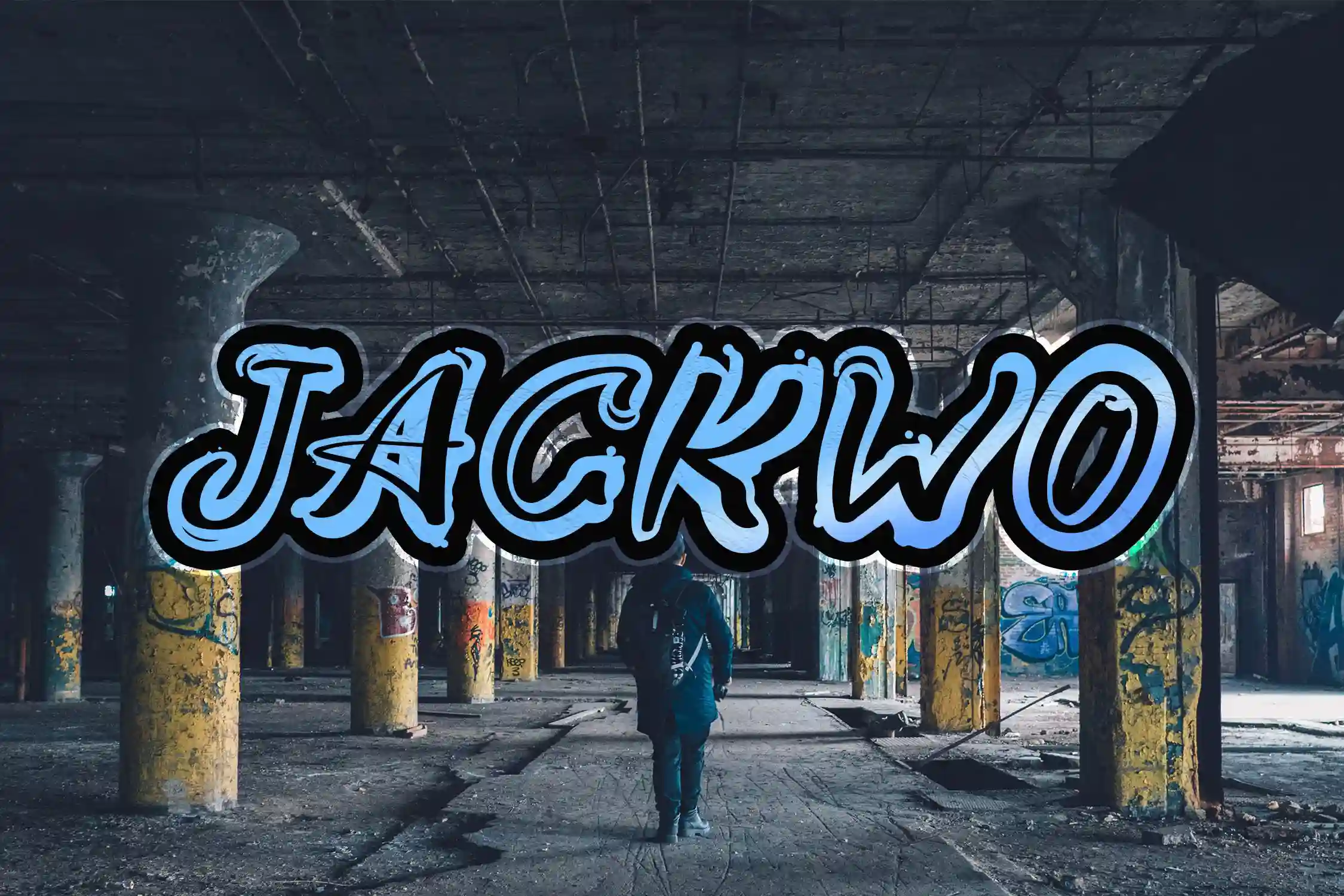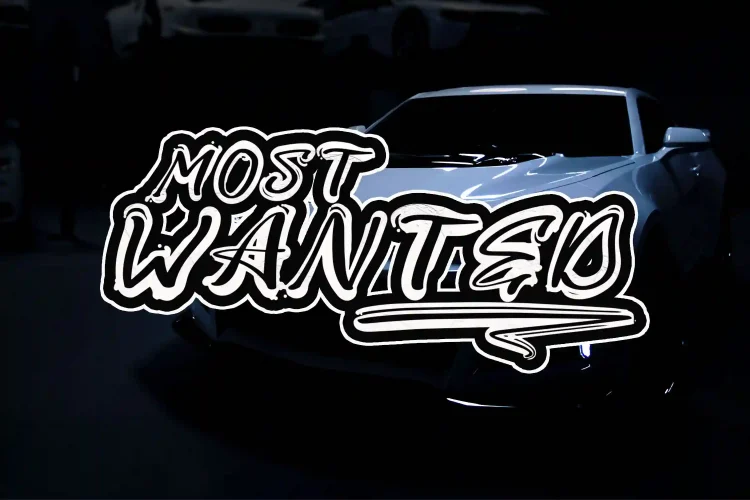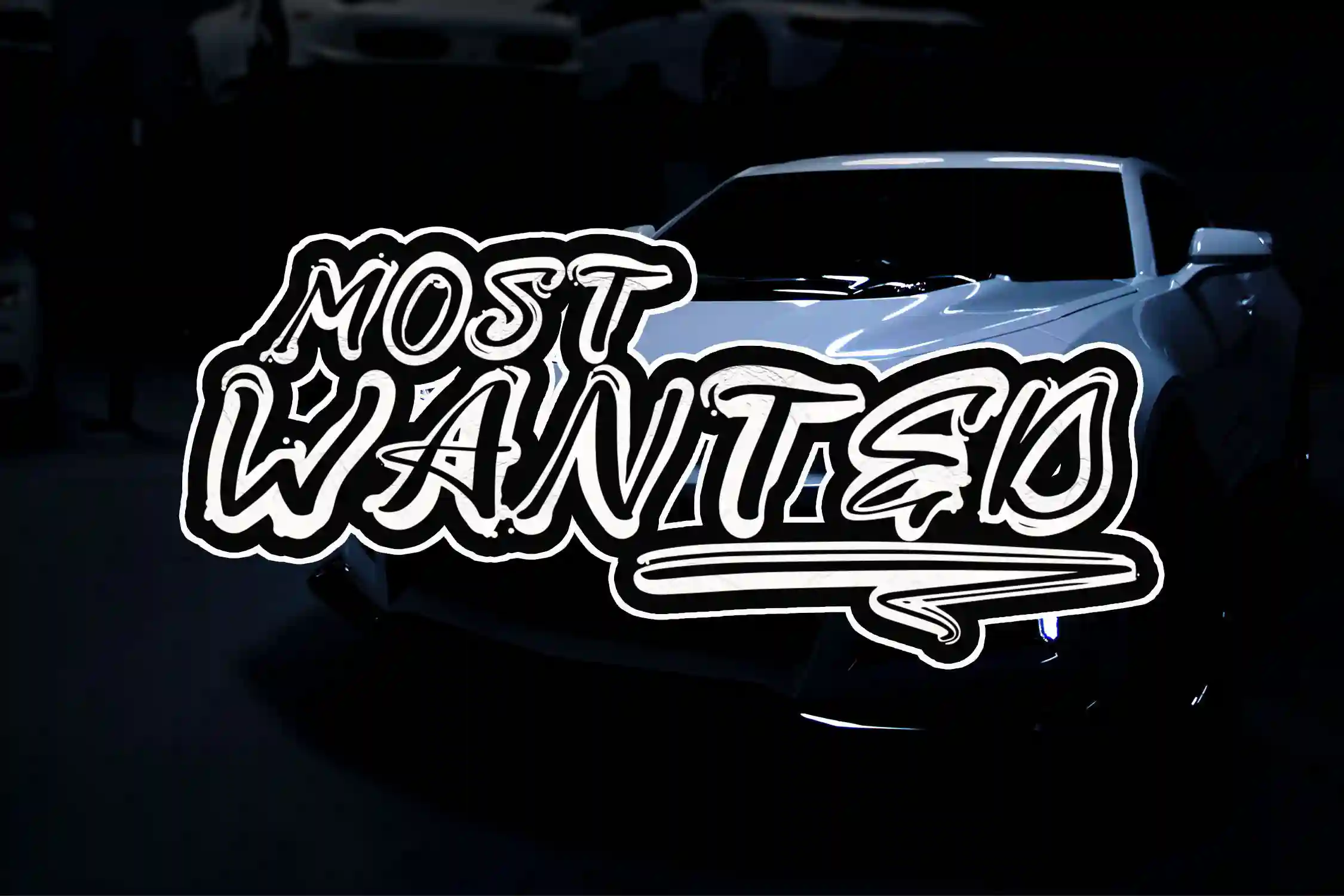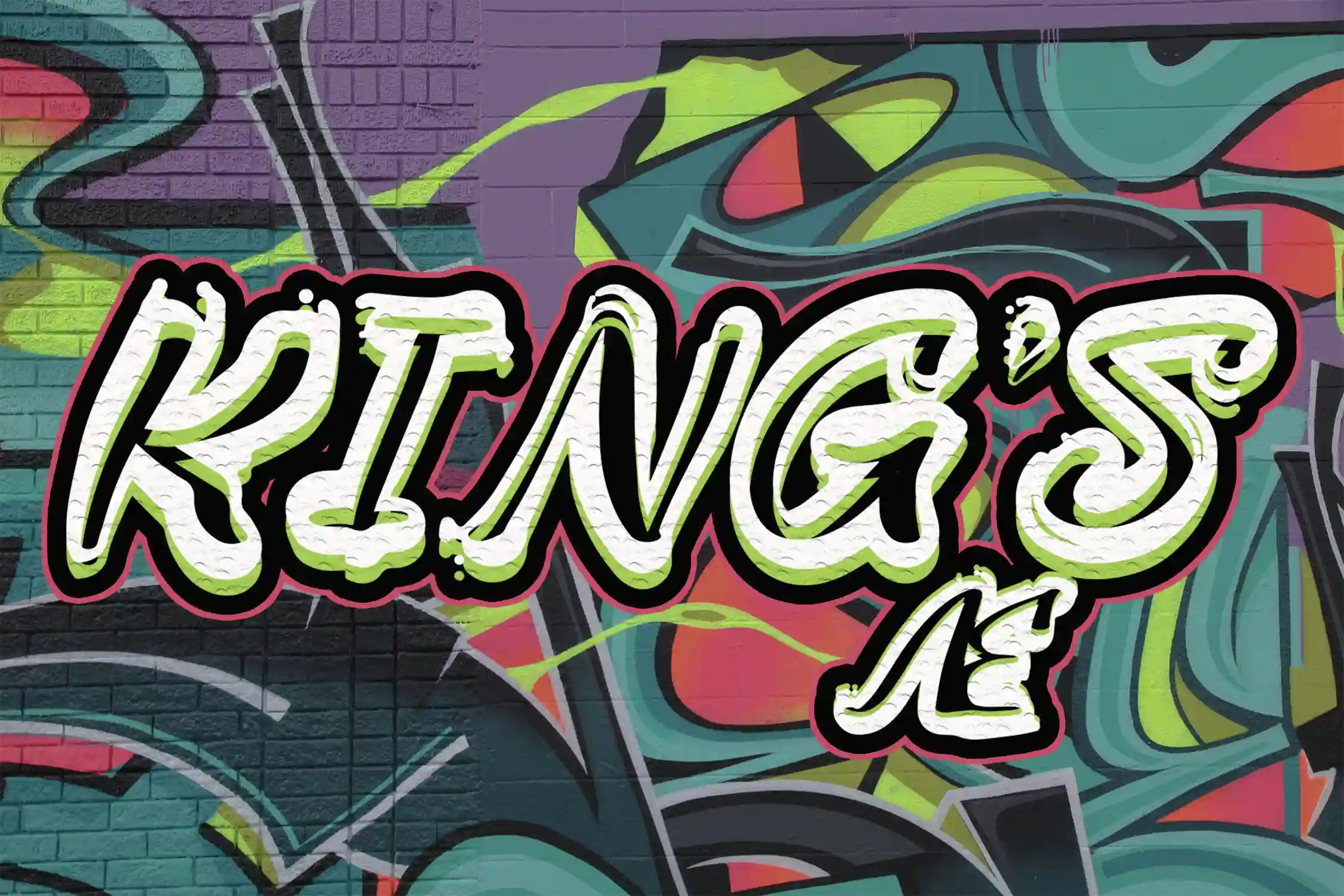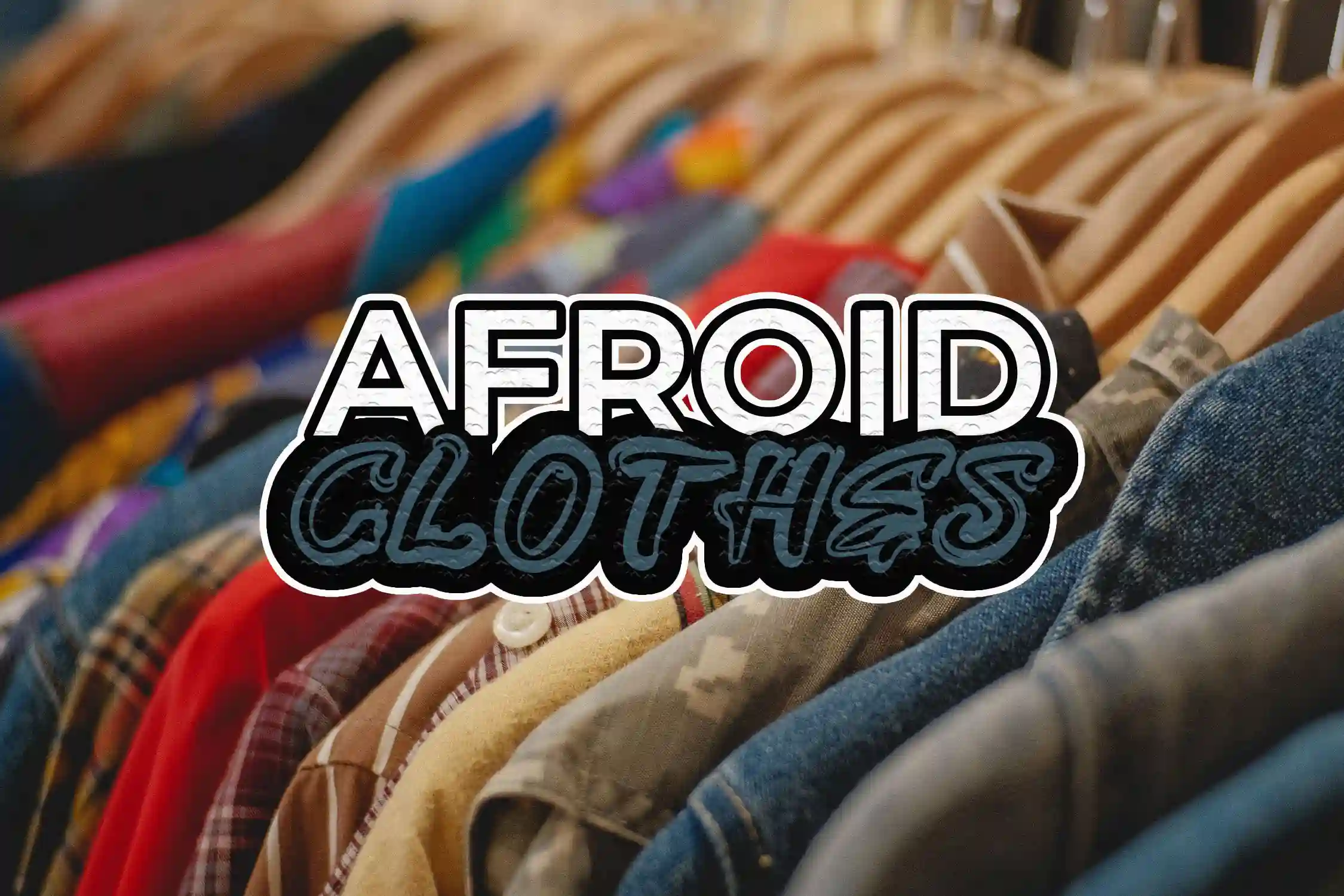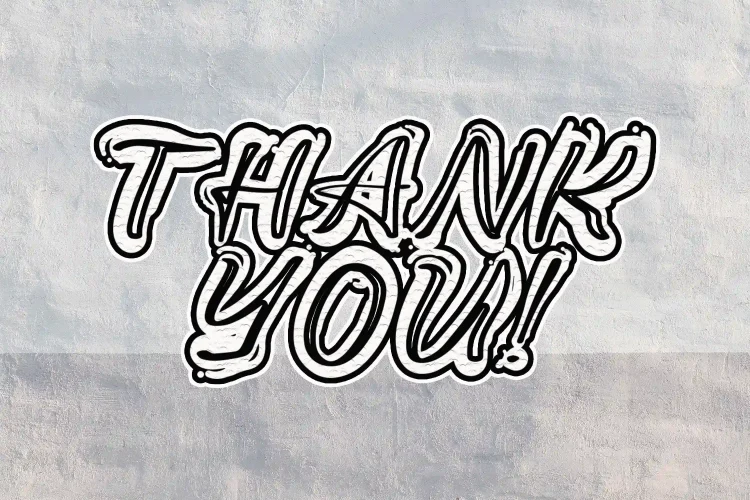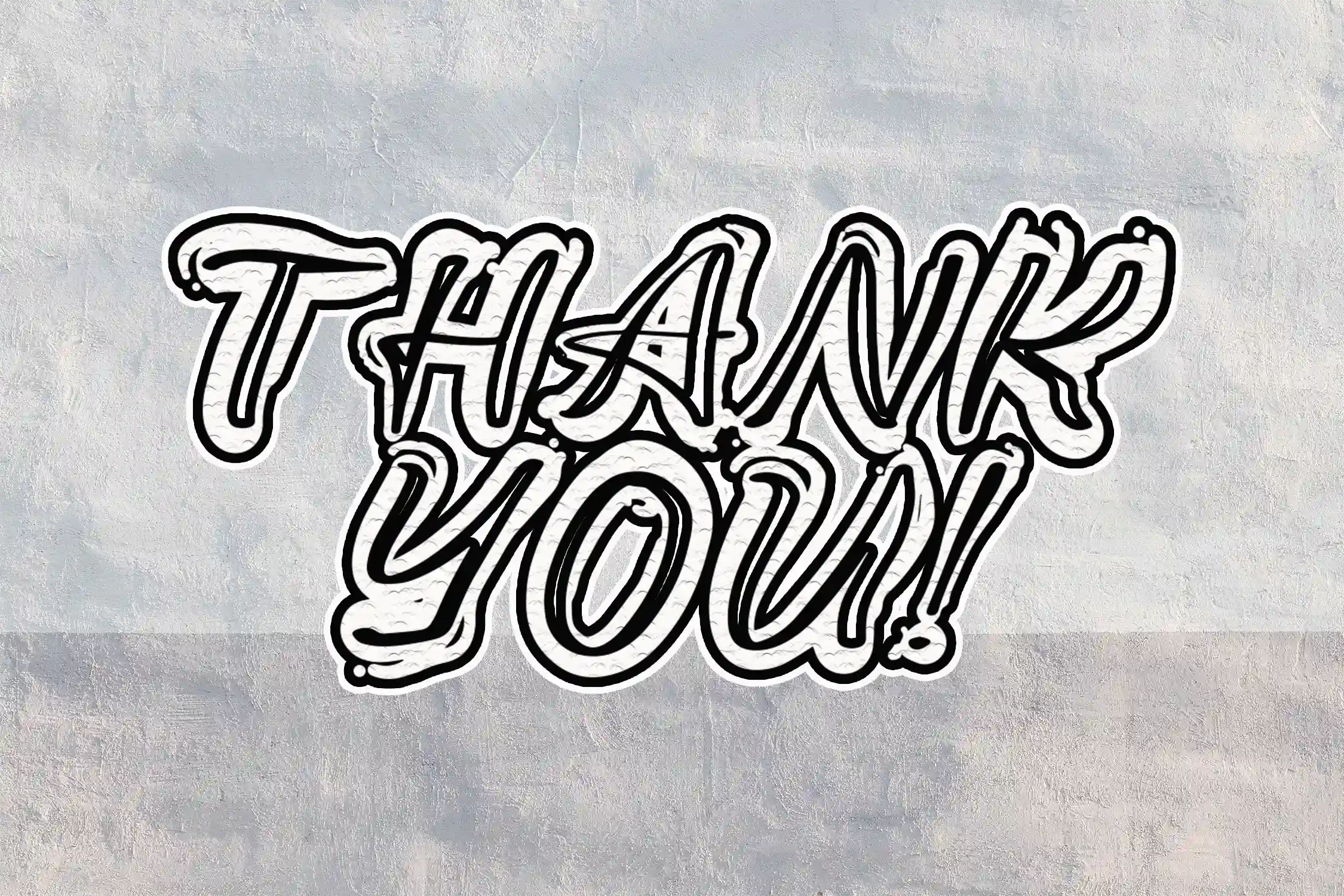
JACKWO
JACKWO – Dripping Handbrush Graffiti Font
Unleash your creativity with JACKWO, a bold graffiti font featuring a dripping handbrush style that brings an urban, edgy feel to your designs. The unique shapes and carefully crafted characters make this font perfect for adding a dynamic, eye-catching touch to posters, branding, street art-inspired graphics, and more.
Add a splash of creativity and boldness to your projects with JACKWO graffiti font!